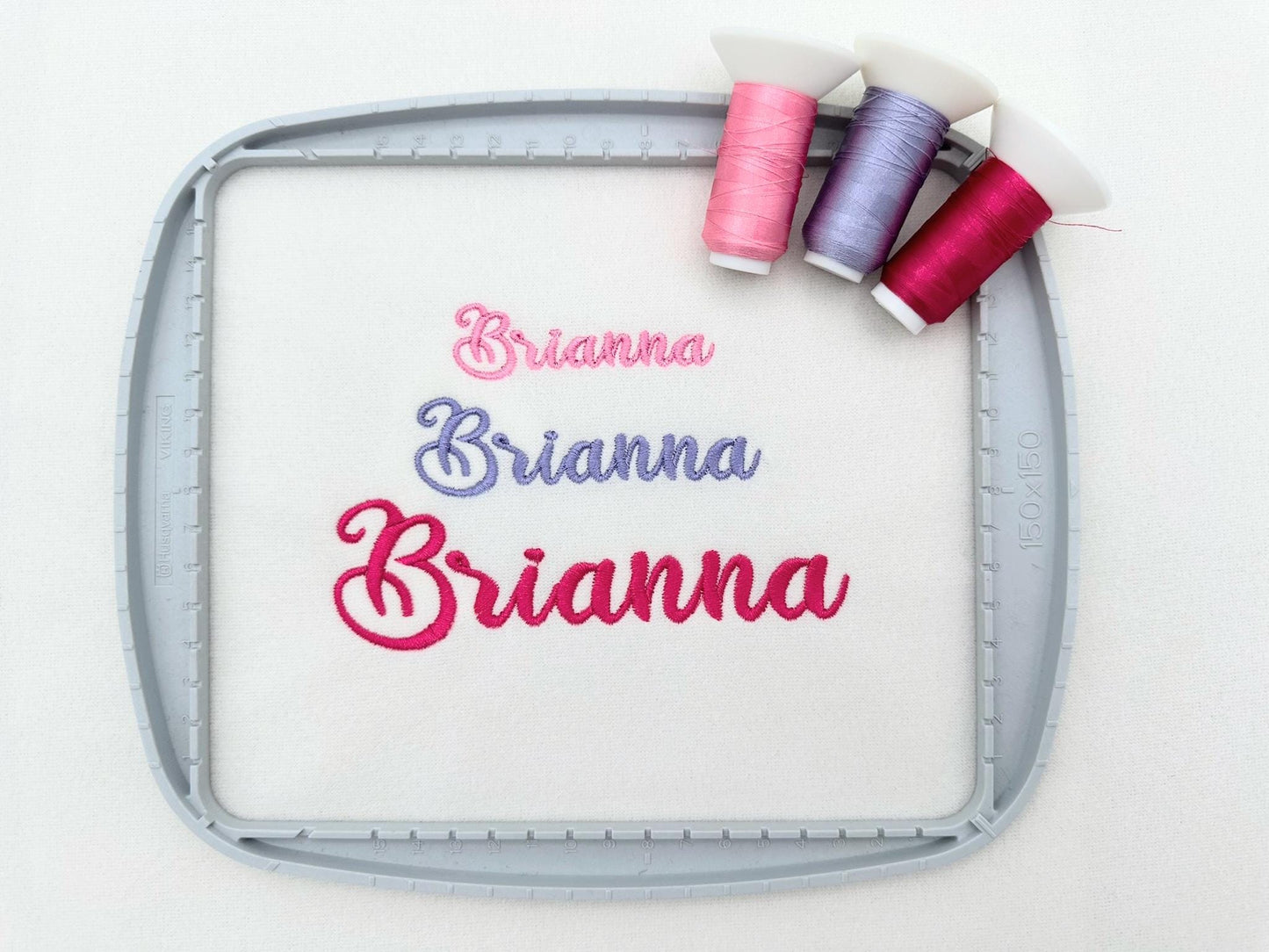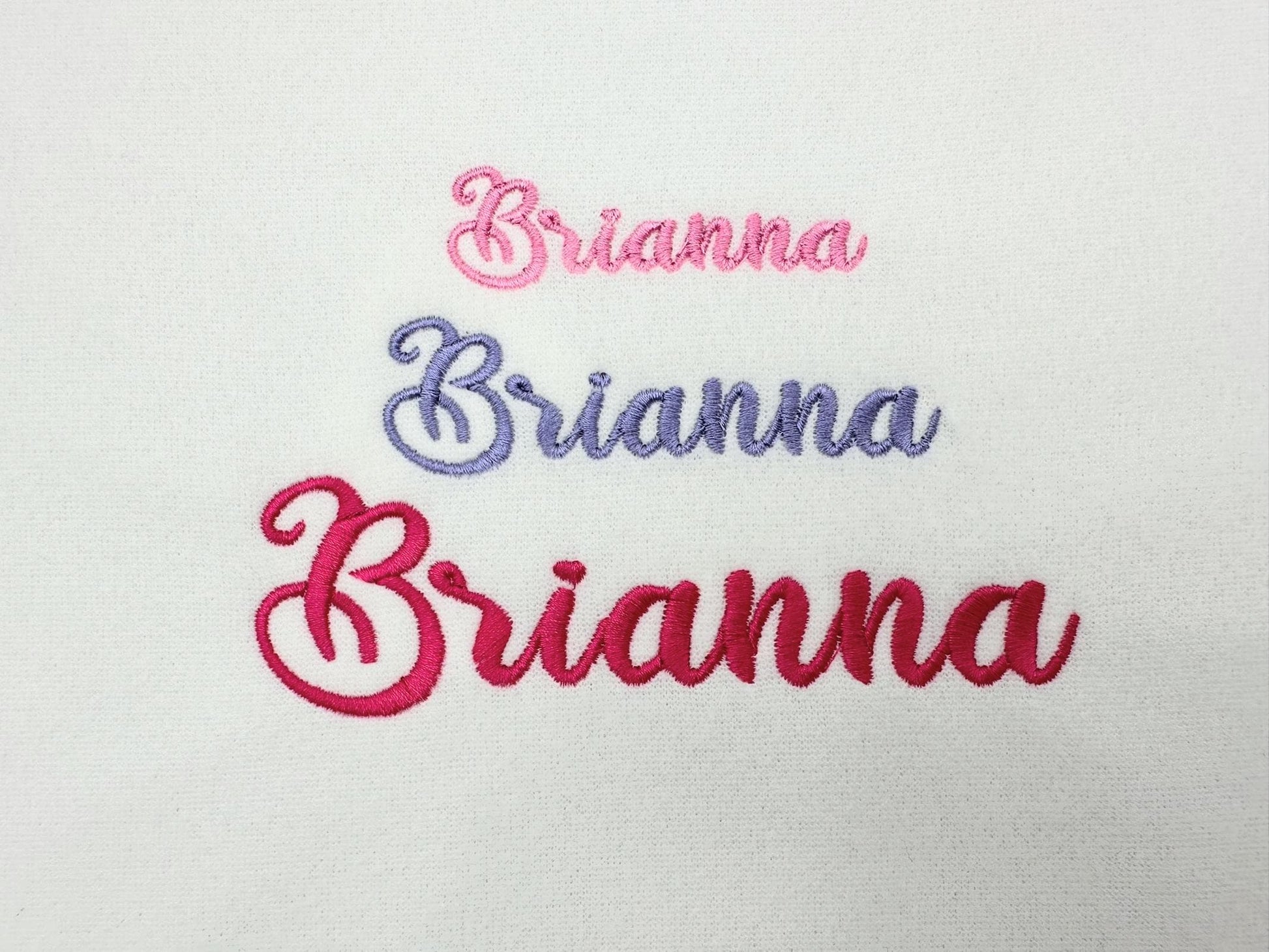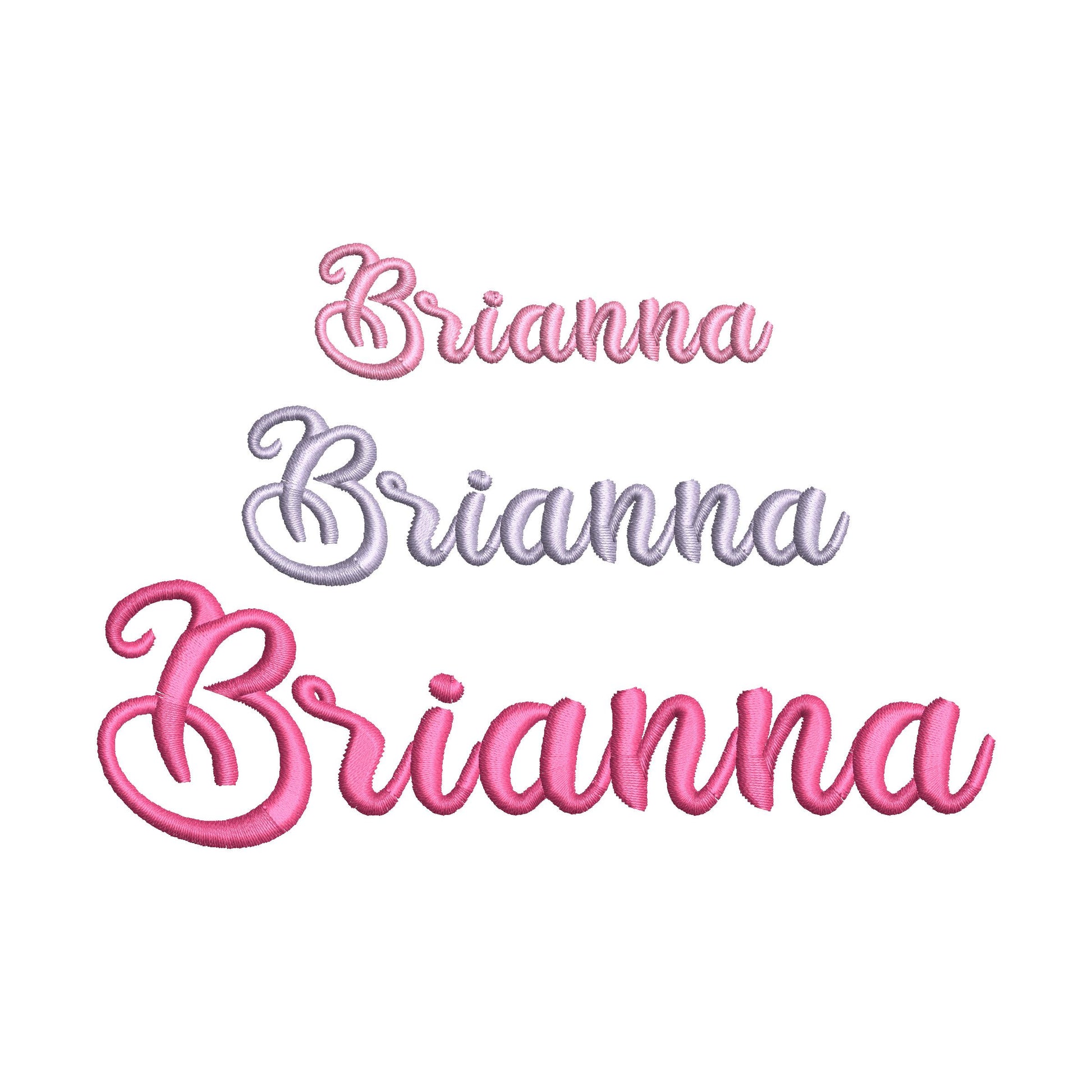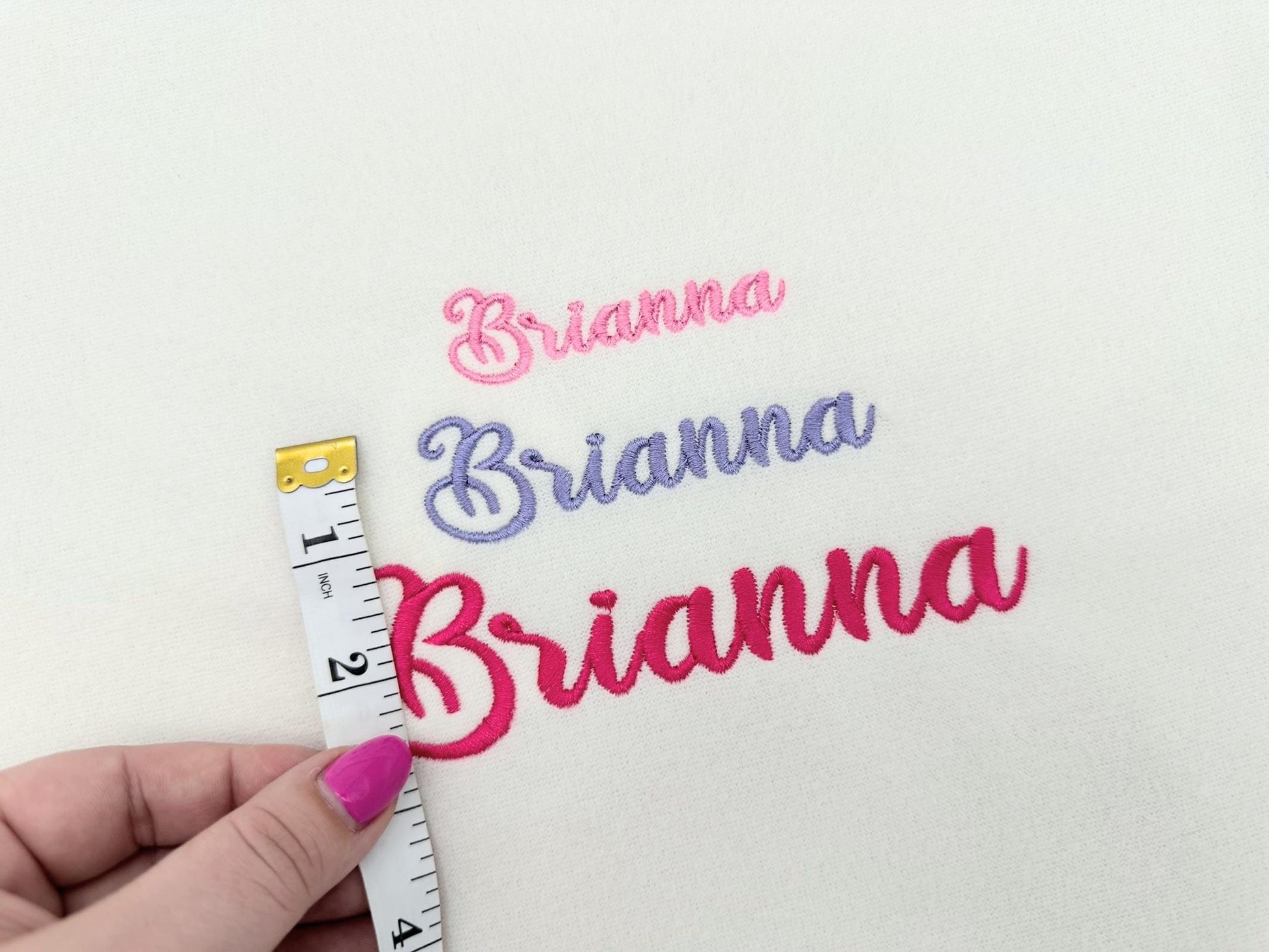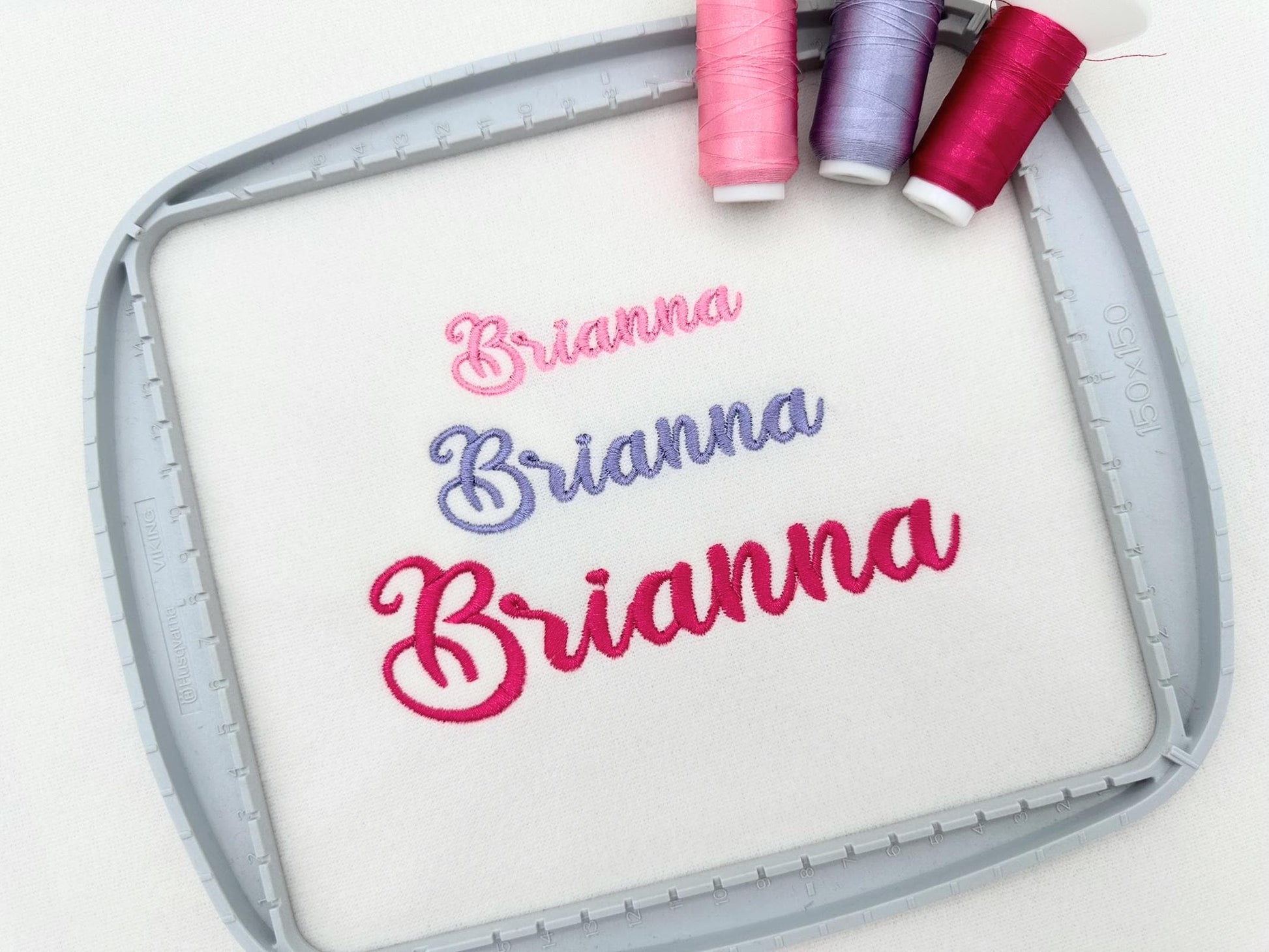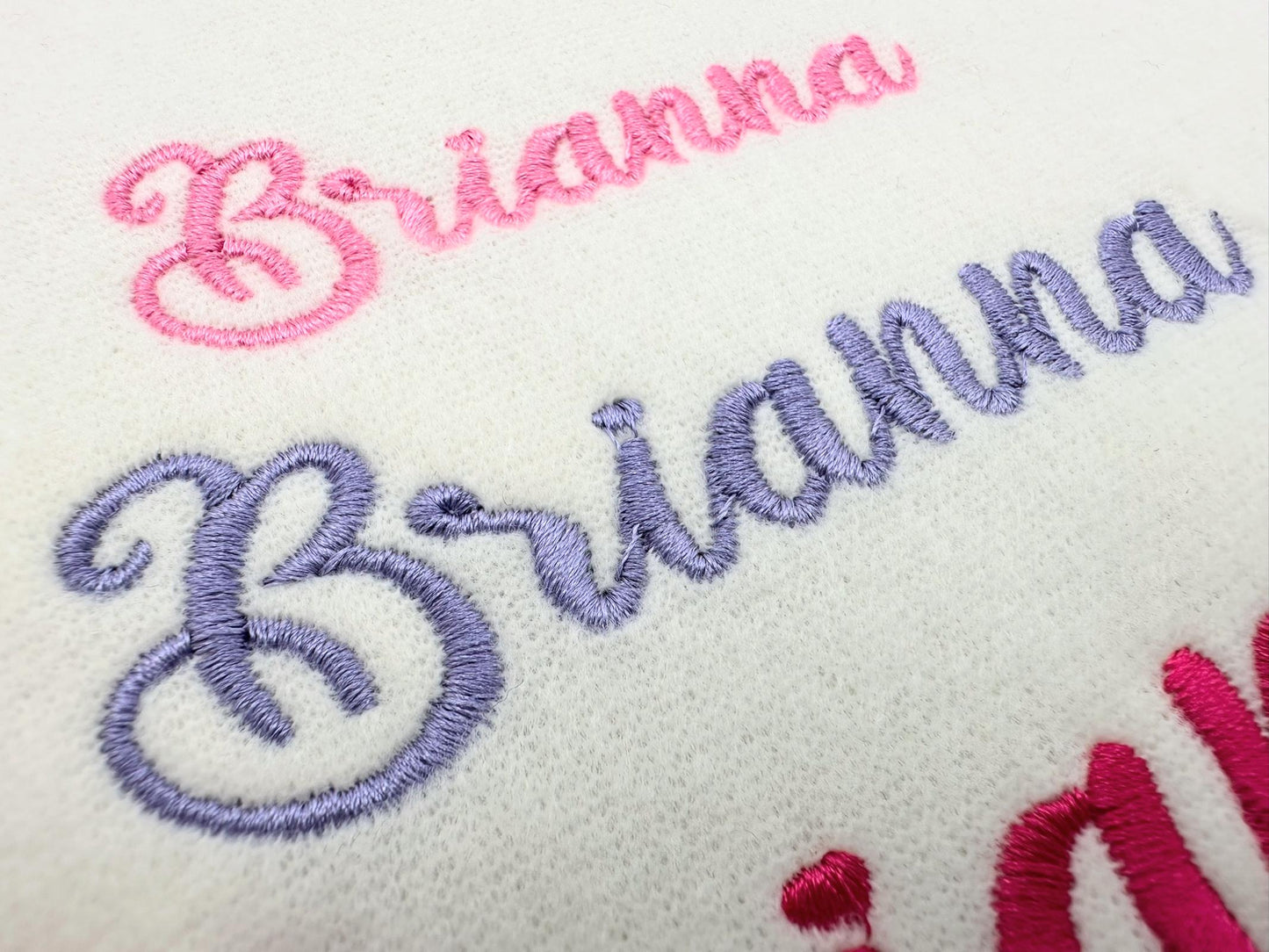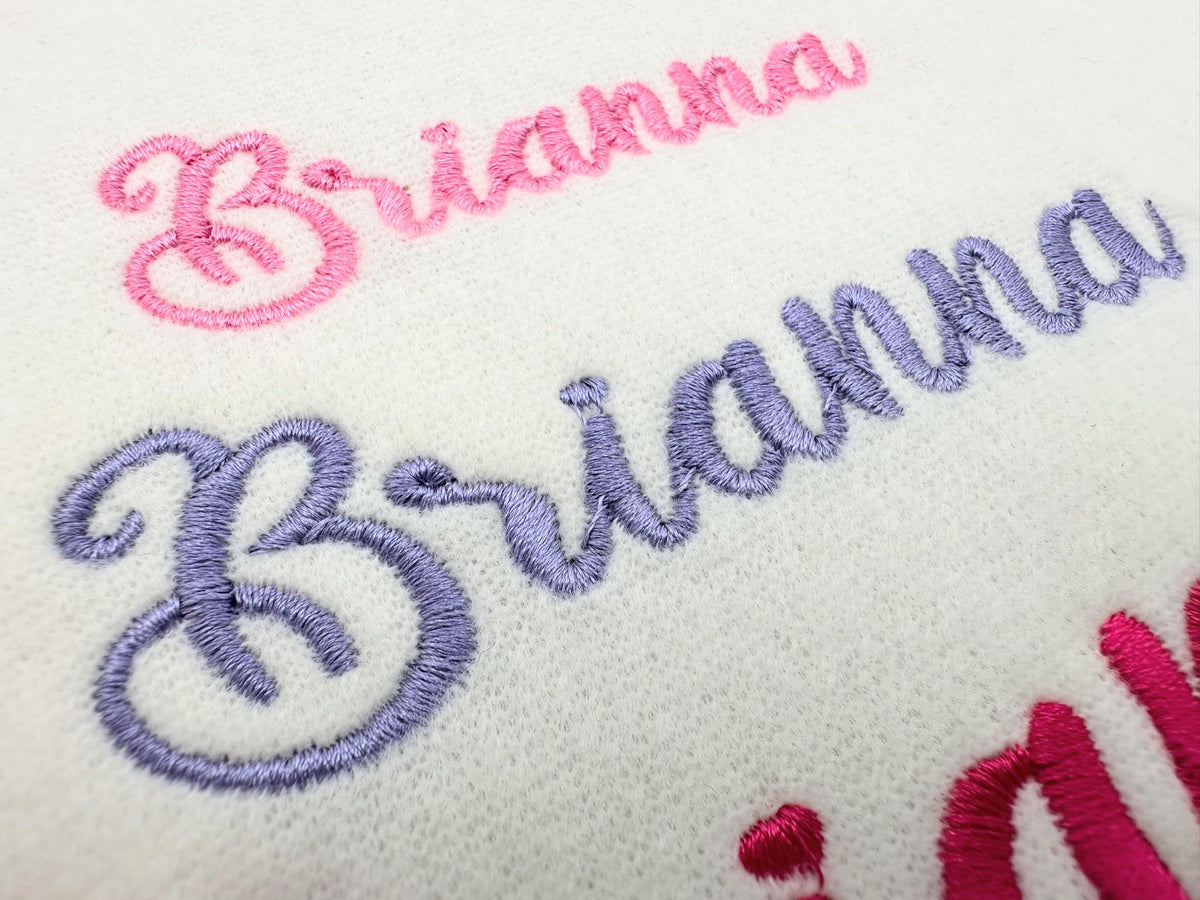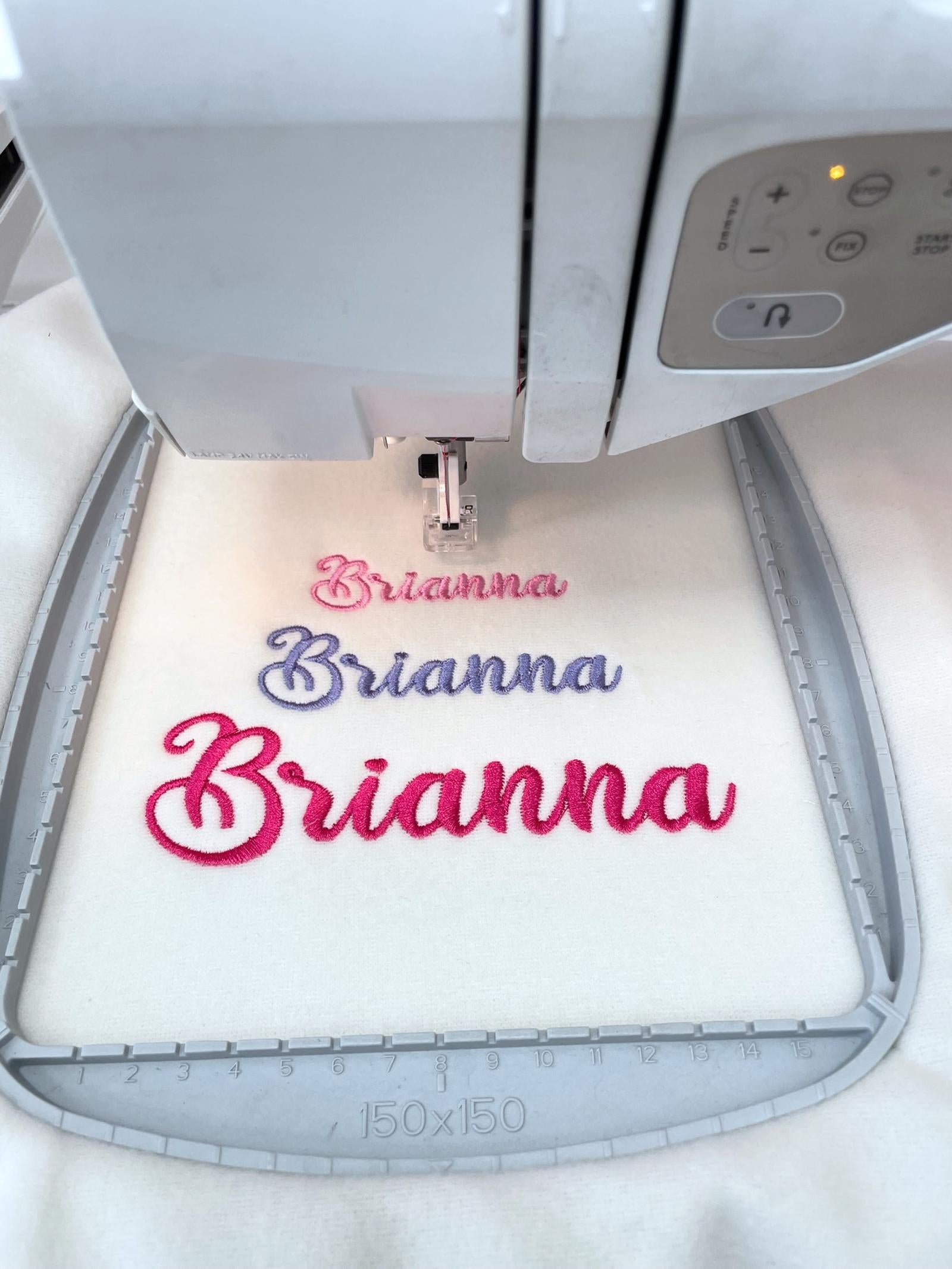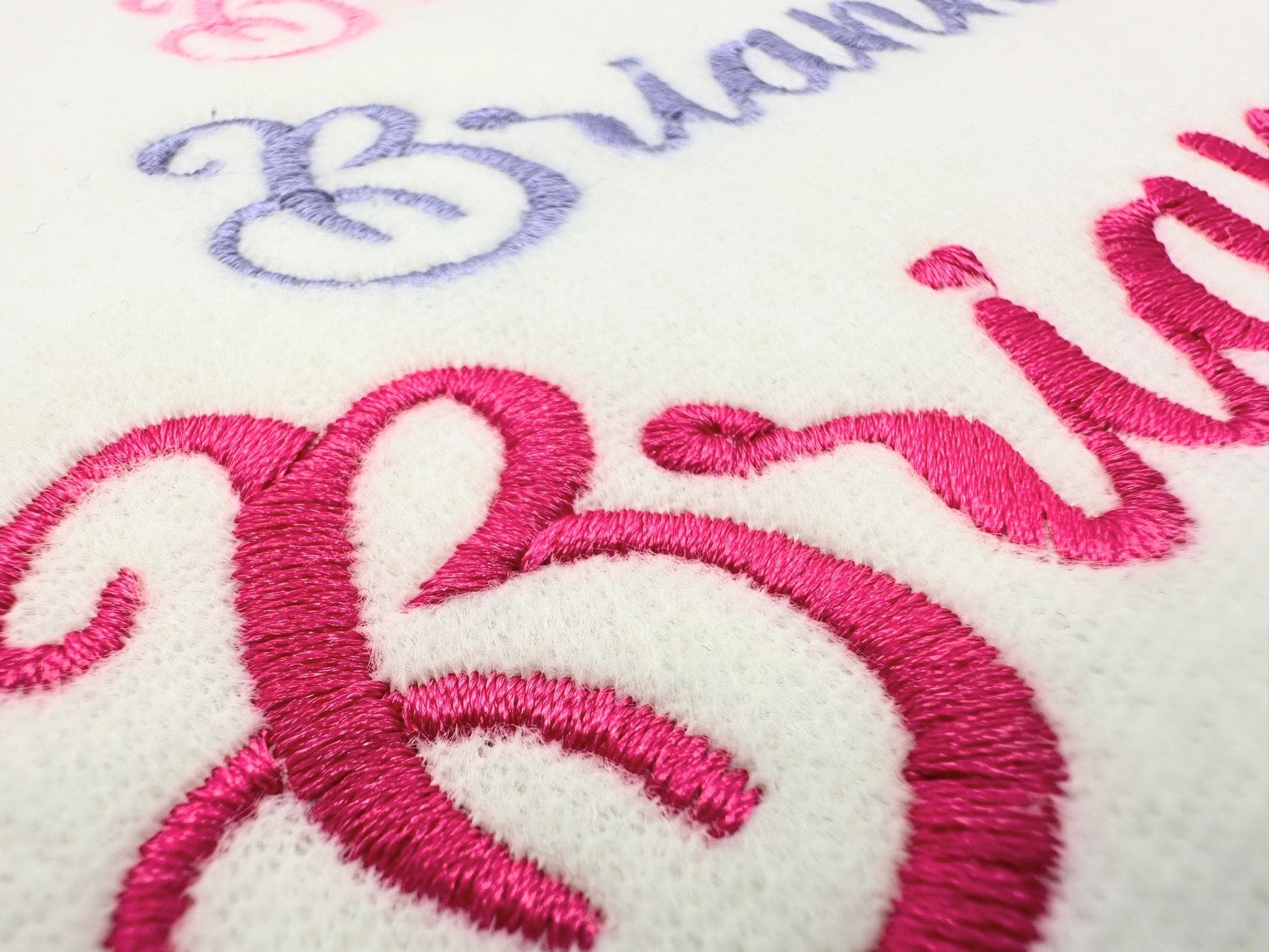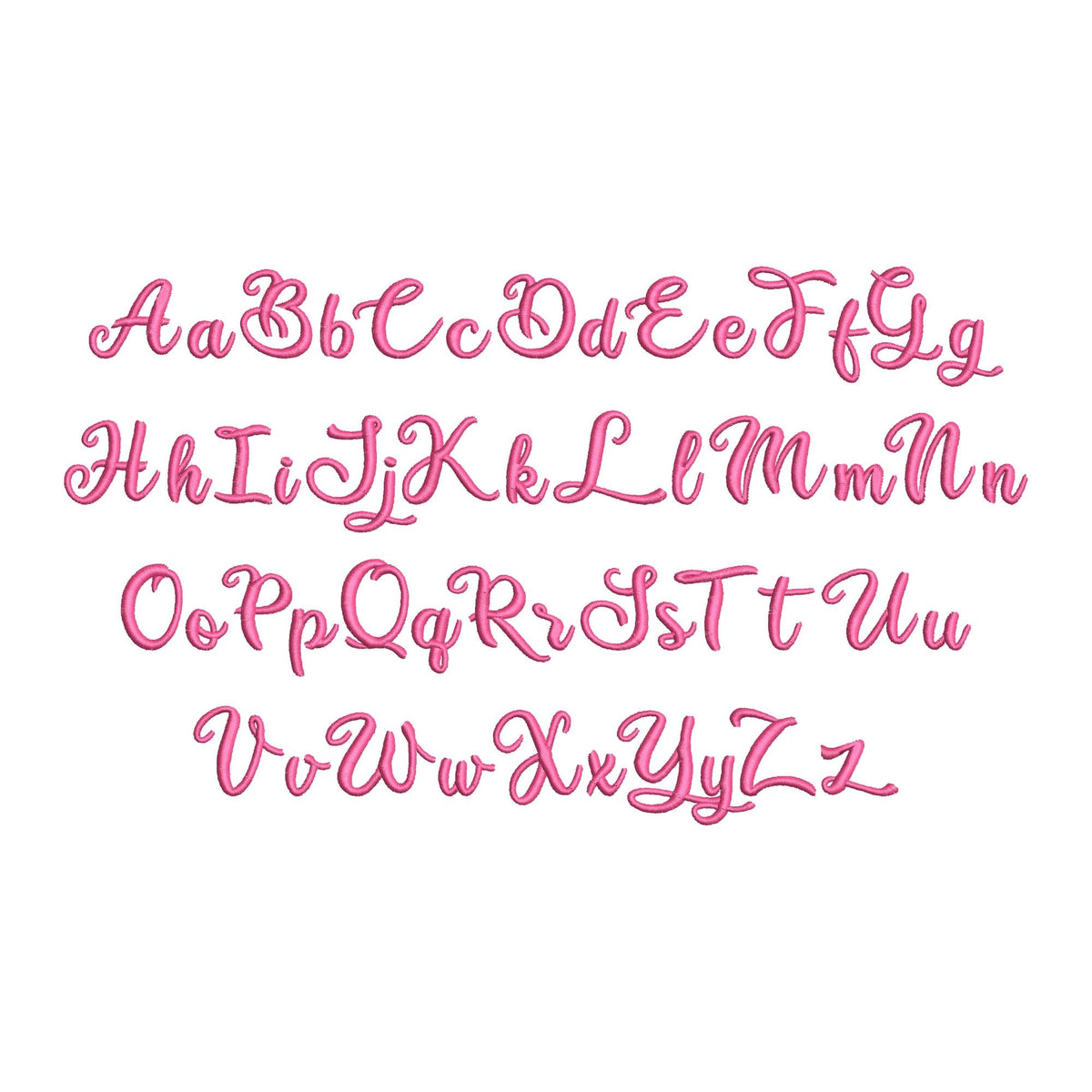
Or click to open the linkA swirly handwritten script in satin stitch, in mini sizes. Sweet for baby and kids' names and small monograms.
The letters come in seven sizes: 0.5, 0.7, 1, 1.2, 1.5, 2 and 2.4 inches. Satin stitch script letters with soft swirls. Includes uppercase and lowercase letters A to Z.
- Swirl satin stitch script font
- Uppercase and lowercase letters A to Z
- 7 sizes, 0.5 to 2.4 in